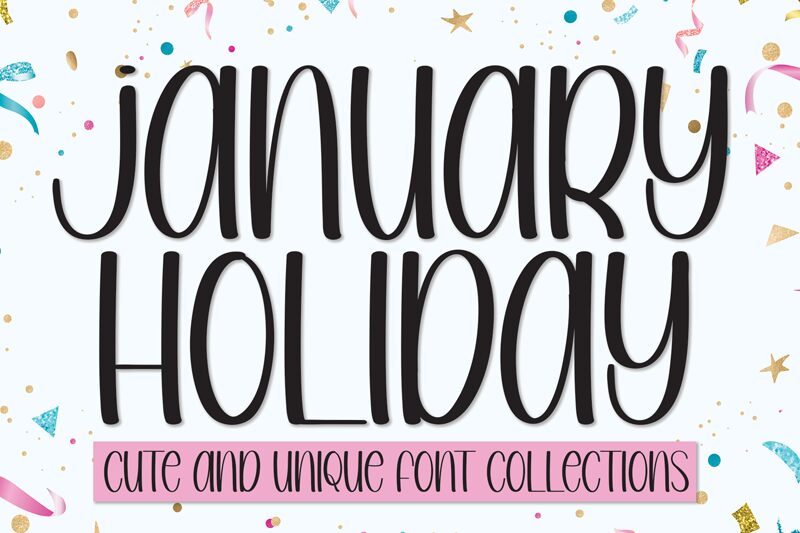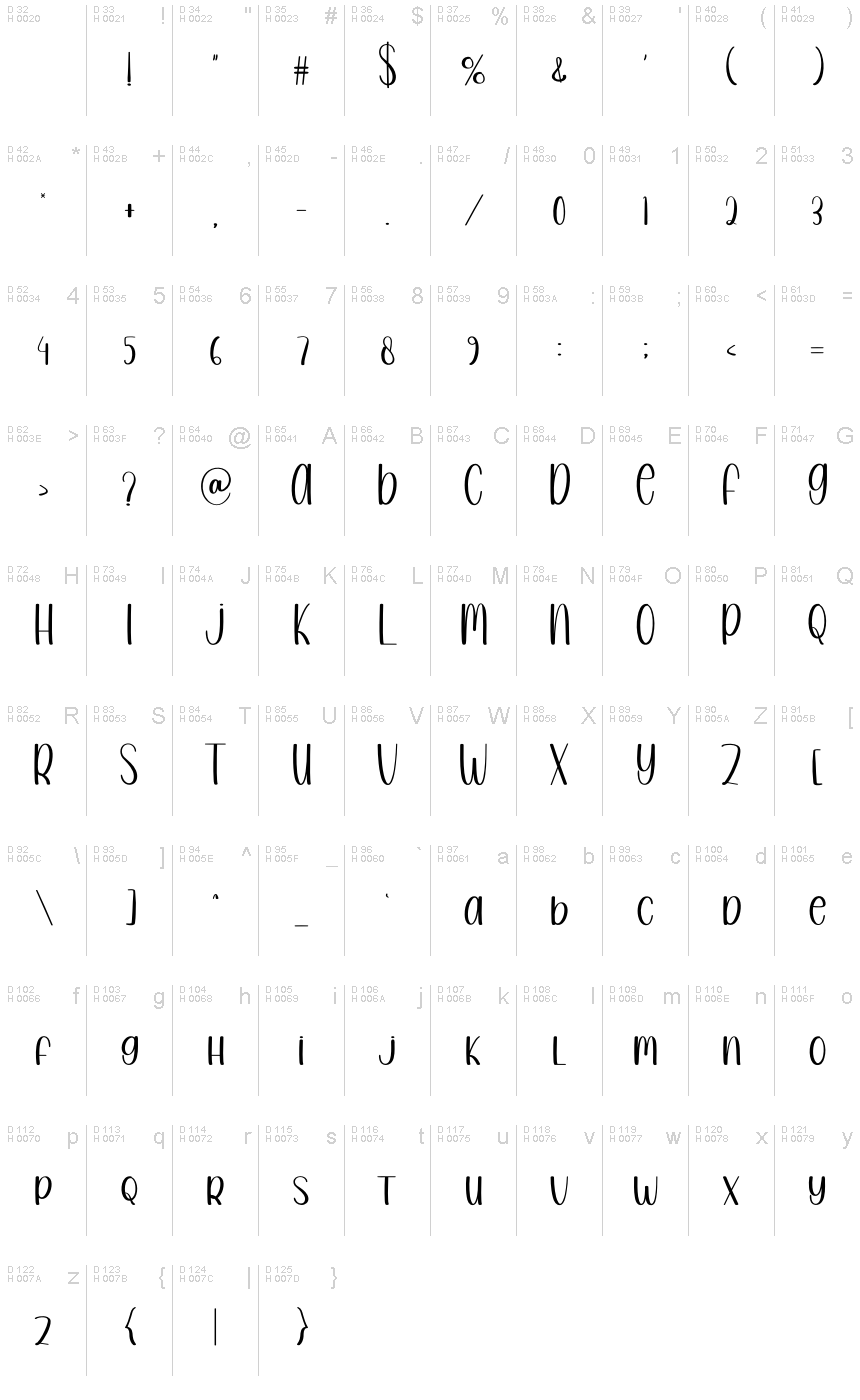
JANUARY HOLIDAY
January Holiday, designed by Scratchones, exudes a personal touch with its handwritten style that invites warmth and familiarity. Its condensed letters dance with a casual elegance, suggesting a playful yet sophisticated charm. The script's fluidity captures the essence of quick pen strokes, making it resonate with designs that seek to impart an intimate and artisanal feel.
The inviting nature of January Holiday lends itself perfectly to projects that require a touch of handcrafted authenticity. From greeting cards to branding for boutique businesses, this font wraps text in a cozy embrace, ideal for conveying messages with sincerity and heart. Its distinctive character ensures standout appeal in contexts craving personality and approachable sophistication.